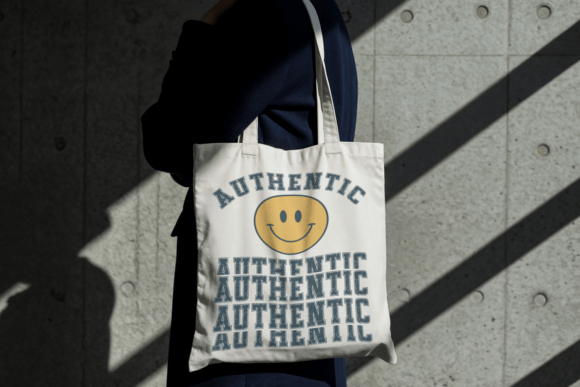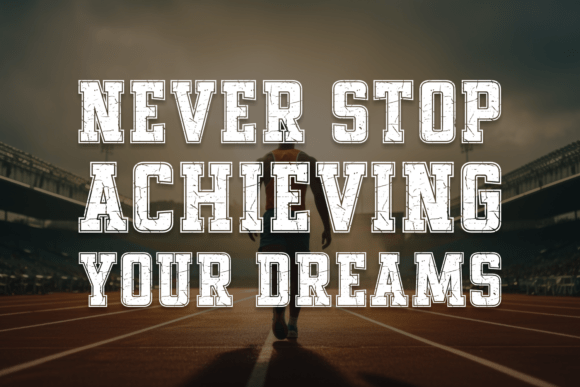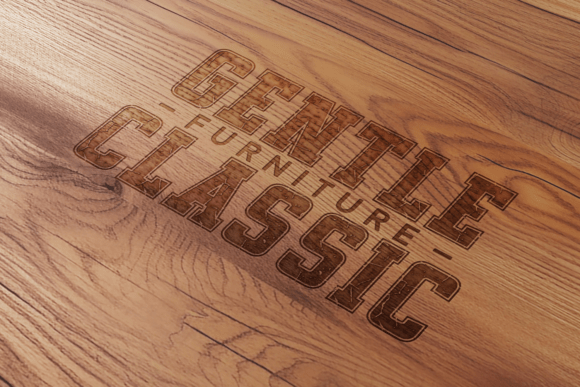
Introduction to Gentle Classic Font
As a designer, you’ve probably had that moment when you’re staring at a blank canvas, searching for the perfect font to bring your creative project to life. You want something that exudes elegance, sophistication, and a hint of nostalgia. That’s when you stumble upon the Gentle Classic Font – a timeless slab serif font that whispers tales of the past. With its heavy, architectural structure and weathered, distressed texture, this font is a design resource that commands respect and evokes a sense of varsity heritage.
The Gentle Classic Font is more than just a font – it’s a statement piece that adds depth and character to any design. Its high quality and versatility make it an ideal choice for brewery logos, vintage apparel design, athletic branding, and rustic product packaging. Whether you’re working on a free download or a paid project, this font is sure to impress with its classic charm and unapologetic style.
Key Features of Gentle Classic Font
- High-quality design resource ideal for creative projects, offering a timeless and elegant aesthetic.
- Unique characteristics include its classic serif style and subtle flair, making it perfect for various design applications, from logos to typography.
Honest Review: Gentle Classic Font
- Timeless design that’s perfect for vintage-inspired creative projects
- High-quality, making it suitable for both print and digital projects
- Works beautifully on a transparent background, adding a touch of sophistication to any design
The Gentle Classic Font is a solid choice, but it may not be the best option for modern, edgy designs. Additionally, the font’s elegant nature can make it difficult to pair with bold or playful fonts.
Overall, I’m impressed with the Gentle Classic Font. Its classic design and high-quality make it a great addition to any design resource. While it may not be the best fit for every project, it’s an excellent choice for designers working on vintage-inspired or elegant creative projects.
Tips for Getting the Most Out of Gentle Classic Font
For the best results, use the Gentle Classic Font in conjunction with a transparent background to create a clean and elegant design. You can also experiment with different font sizes and styles to add emphasis and create visual interest.
The Gentle Classic Font is ideal for a wide range of creative projects, including business cards, brochures, and presentations. It’s also a great choice for web design, where a high-quality and professional font is essential for creating a good first impression.